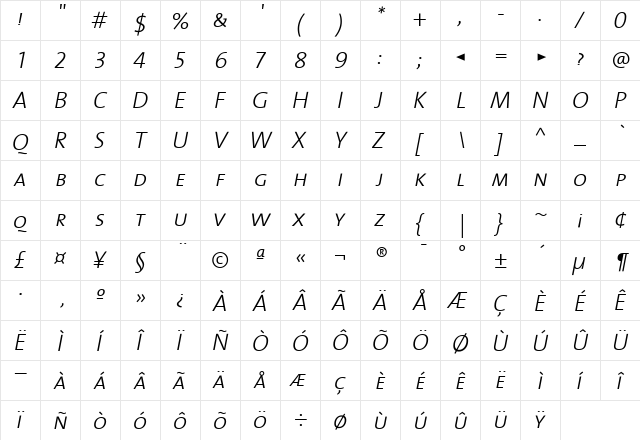
TheMixLight Roman Italic
Design Context for TheMixLight Typeface
TheMixLight takes a measured approach to typography — its balanced proportions and neutral character make it a reliable workhorse for both digital and print work. The dynamic lean of this cut emphasises speed and emphasis in any layout. The delicate stroke weight brings airiness and refinement to layouts.
Pro Tip: Use TheMixLight for emphasis, pull quotes, and subheadings where its slanted energy can add rhythm to the layout.